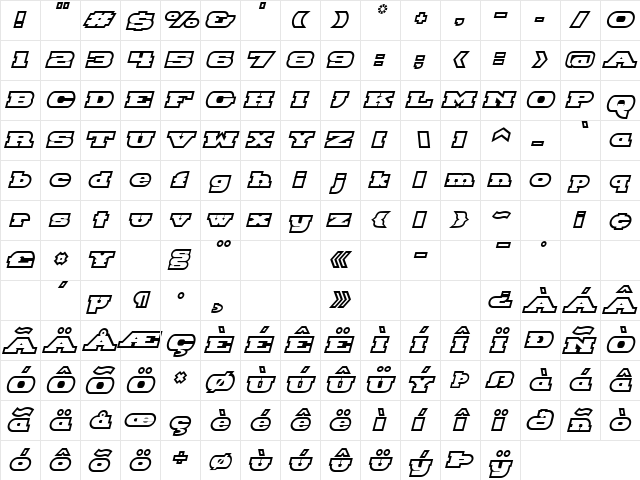
Hackney Block Outline Italic
Design Context for Hackney Block Outline Typeface
Hackney Block Outline brings ornamental detail and strong personality to headlines and identities, where visual impact matters more than quiet functionality. Its italic angle brings a sense of urgency and motion to the letterforms.
Font Pairing: Pair with a clean neutral sans-serif for body copy to let Hackney Block Outline's character lead without overwhelming the composition.
Pro Tip: Use Hackney Block Outline exclusively at display sizes — it was designed to be seen, not read at length. Let a neutral companion handle body copy.